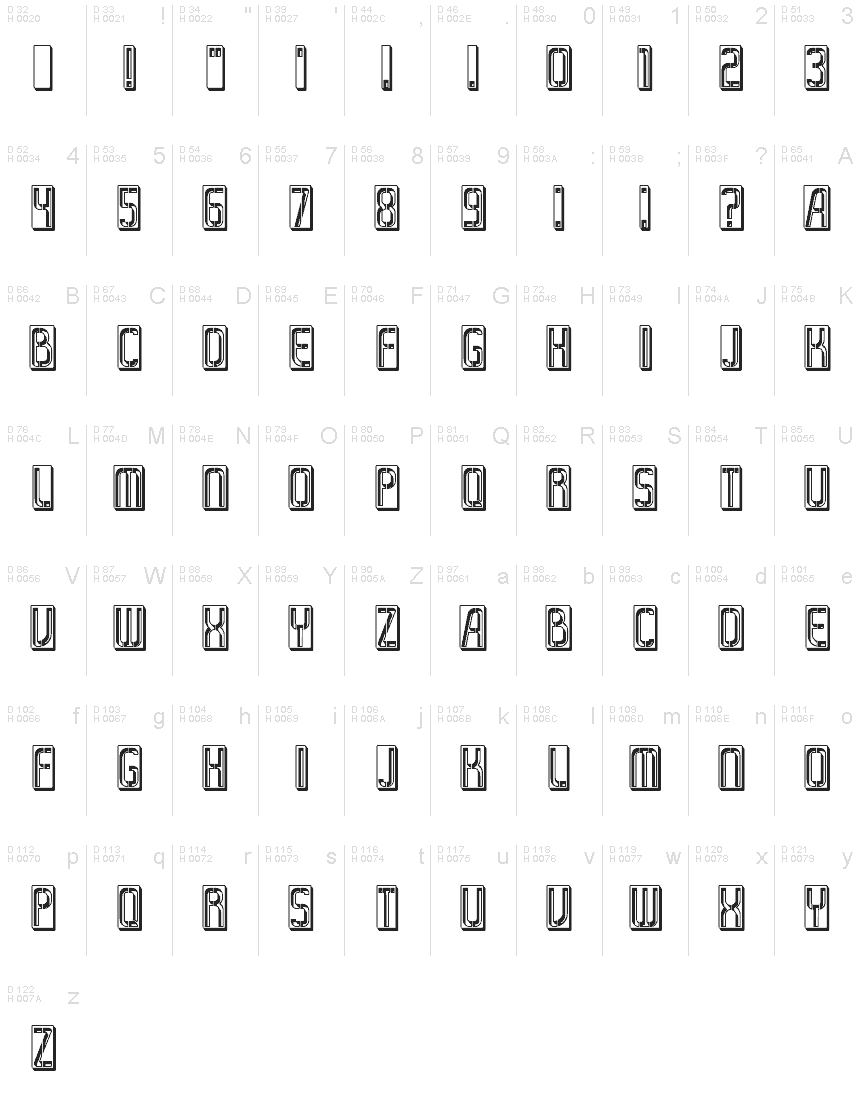
Departing Regular
Departing font is a futuristic and modern display font designed by Vladimir Nikolic. Geometric shapes and condensed characters are mastered in the design in a way that allows designers to reflect their audiences into the future. There’s no better choice than Departing if you’re working on a technological project with clean aesthetics.
This free display font is suitable for poster designs, movie titles, video game titles, album covers, logotypes, branding elements, and more. Or you can just unleash your imagination by using it for other purposes that might not initially seem so obvious.